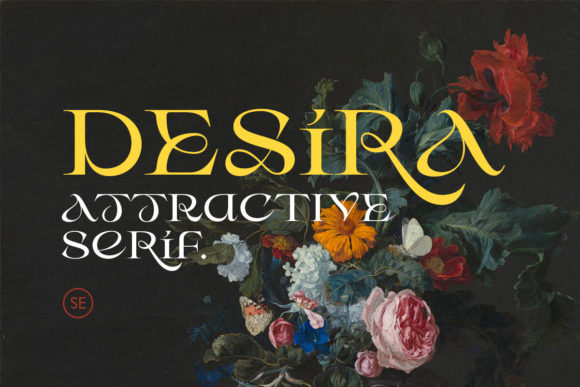
Embark on a typographic journey with Desira Font, a captivating serif font family that breathes life into your creative expressions. Its sinuous curves and elegant strokes evoke a sense of sophistication and timeless beauty. Experience the allure of Desira, the ideal font for crafting eye-catching logos, branding, and quotes that leave a lasting impression.
Desira's inherent charm lies in its unique and beautiful touch, a testament to the artistry of its creator, saridezra. Each letter exudes a personality of its own, dancing gracefully across your designs to create a symphony of visual delight. Let Desira's distinctive style elevate your designs, whether you seek to captivate audiences with striking logos, establish a cohesive brand identity, or share inspiring quotes with the world.
Step into a world where elegance meets creativity, where Desira's wavy and trendy aesthetics transform ordinary text into captivating works of art. Its versatility spans across a multitude of applications, seamlessly adapting to magazine adverts, social media graphics, website headlines, and countless other digital platforms. Unleash your imagination and let Desira guide you towards typographic excellence.
With Desira, the possibilities are endless. Its innate charm breathes life into logos, transforming them into visual masterpieces that command attention and leave an indelible mark on your audience's minds. Create a cohesive brand identity that exudes professionalism and sophistication, resonating with your customers on a deeper level. Share your thoughts and ideas with the world through quotes that captivate and inspire, amplified by Desira's elegant presence.
Desira Font, a serif masterpiece, beckons you to embrace its allure and embark on a creative journey like no other. Discover the true power of typography as you witness Desira transform your designs into captivating works of art. Dare to be different, to stand out from the crowd, and to leave an unforgettable impression on the world.